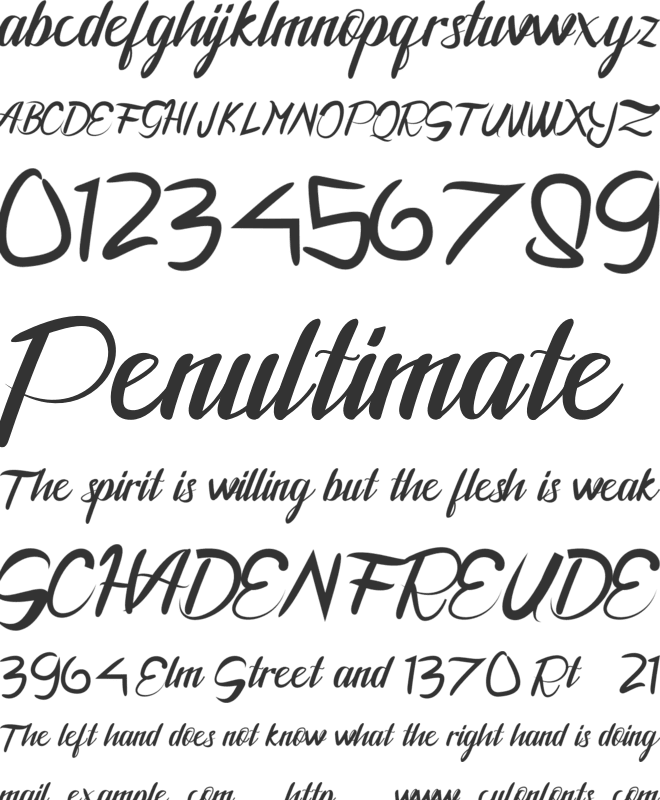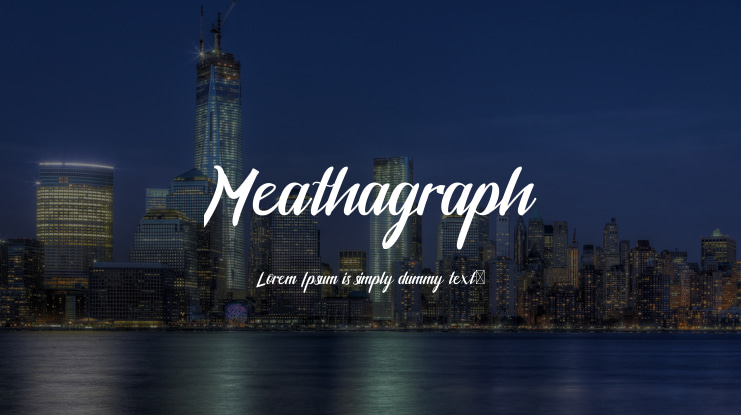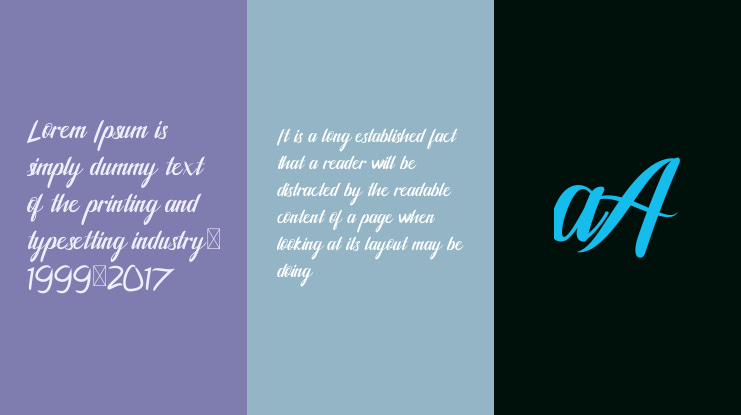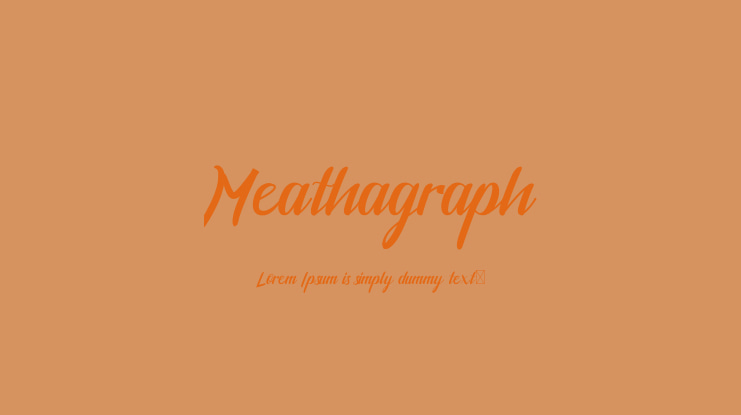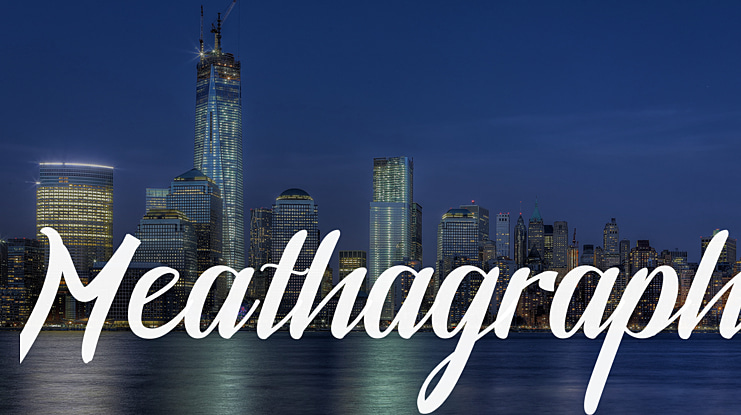
Meathagraph Font
Meatagraph font is very suitable for girl branding and for words for social media, because this font is designed with an elegant impression